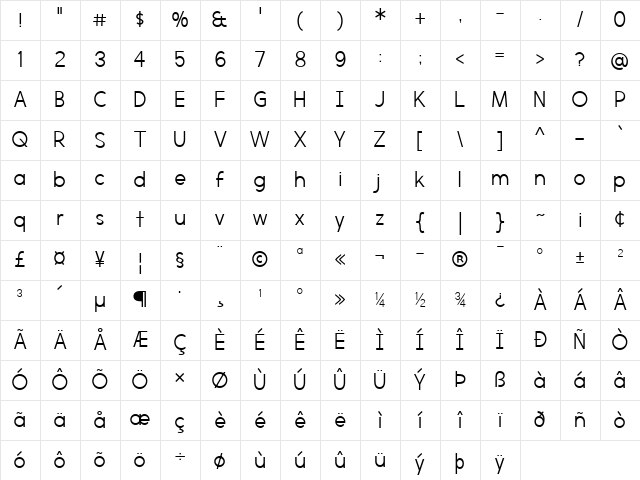
Complete Morningtype Light glyph index. Displaying only characters natively supported by Morningtype Light font.
Morningtype is a composed and adaptable typeface that performs quietly and consistently across a wide range of design contexts. Its slender proportions lend an understated elegance to any composition.
Pro Tip: Use Morningtype in both headline and body roles to test its range before committing to a single application.